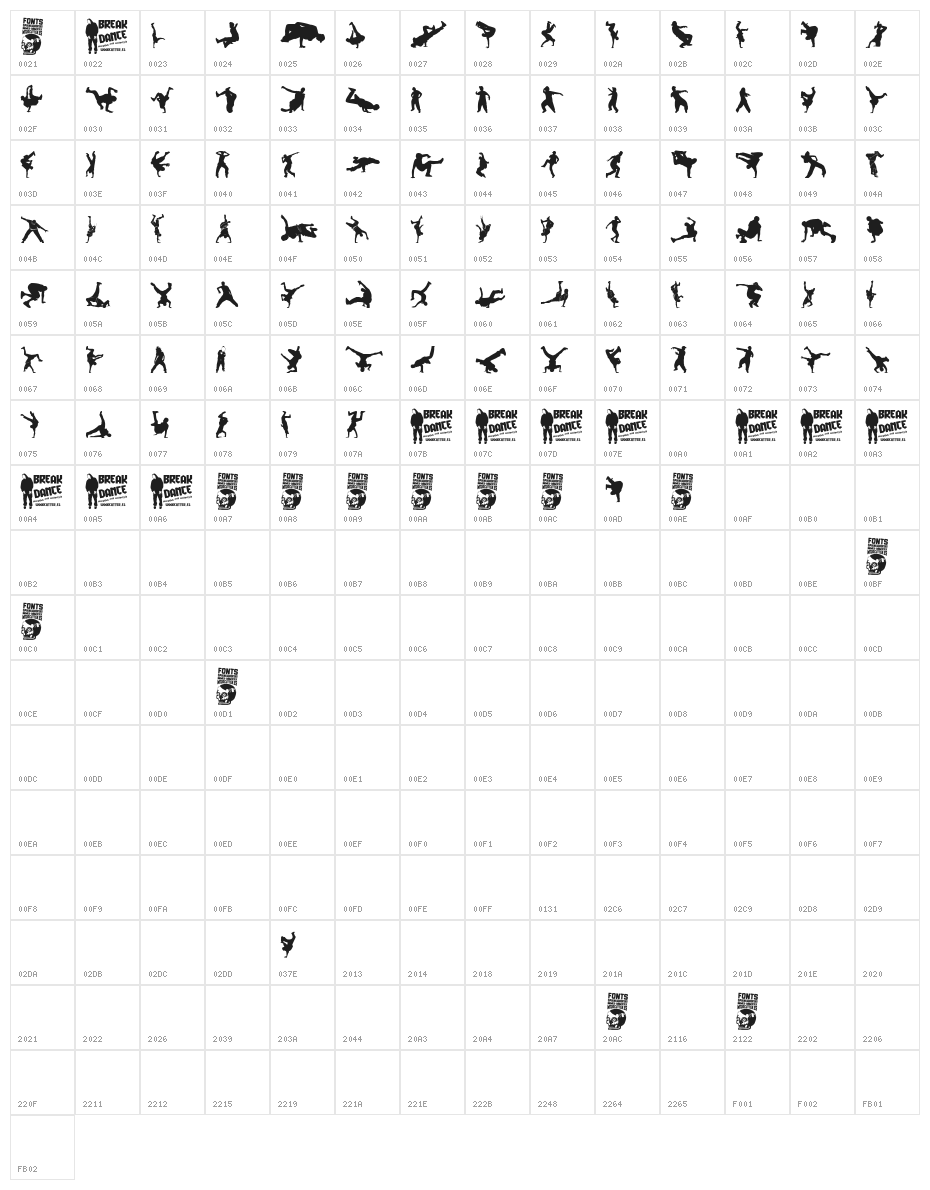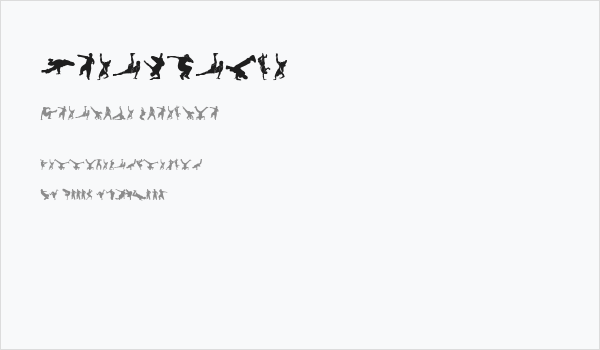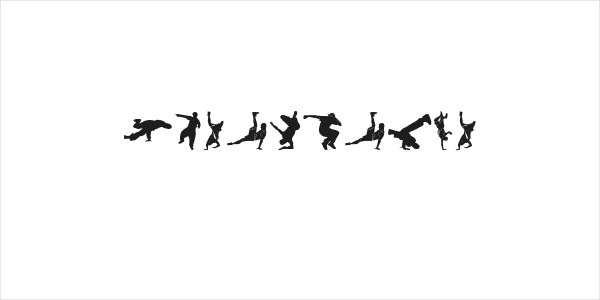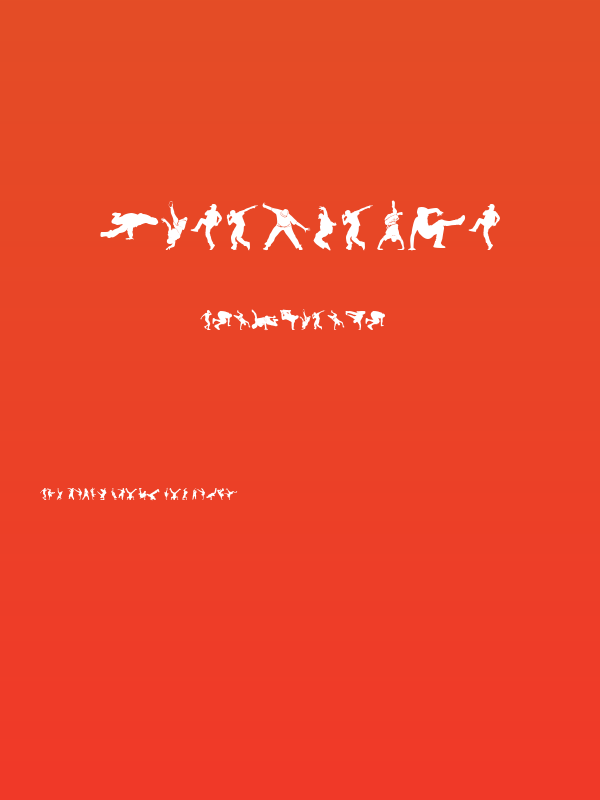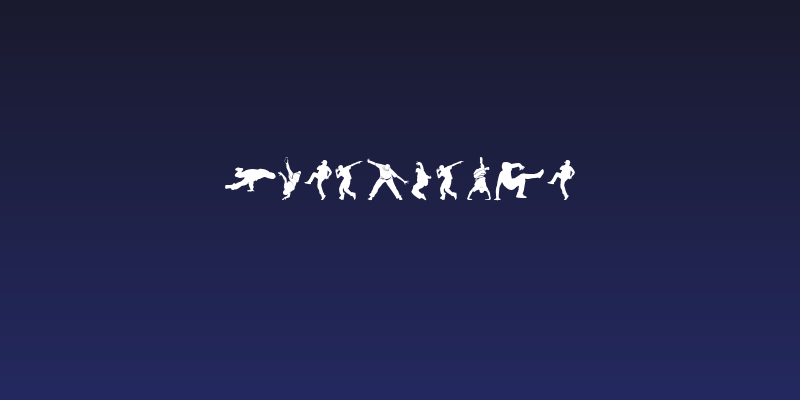
Breakdance Font
Breakdance Description
A decorative display font composed of dynamic breakdancer silhouettes forming each character, with high visual energy and irregular shapes. The letterforms are highly stylized, prioritizing expressive movement over traditional readability.
Overall StyleDecorative, Urban, Expressive
Proposed ProjectsEvent posters, urban-themed branding, dance flyers, youth culture graphics, music festival materials.